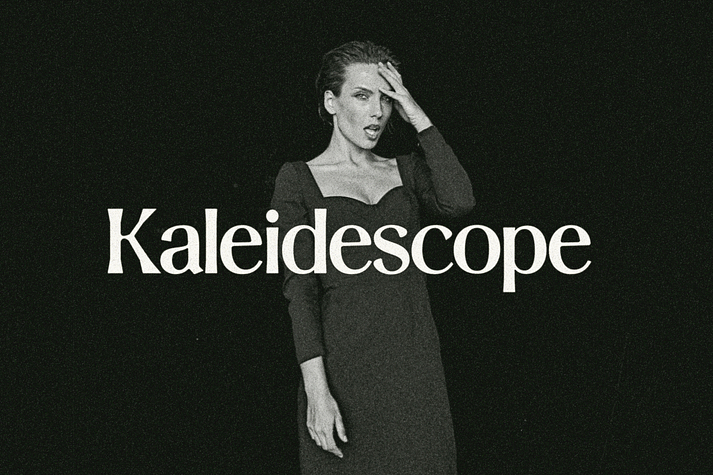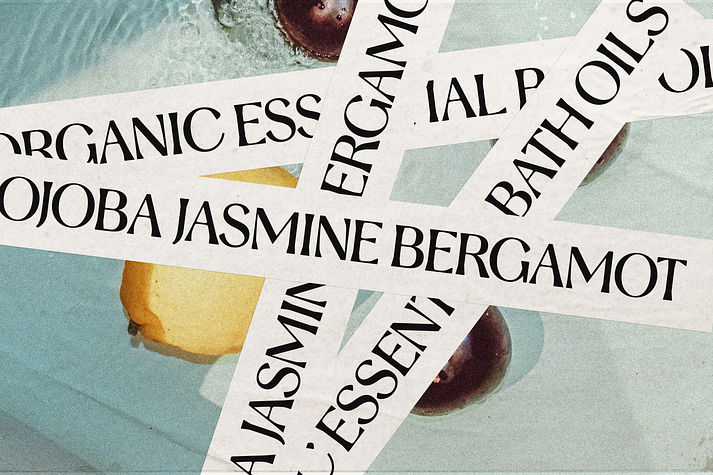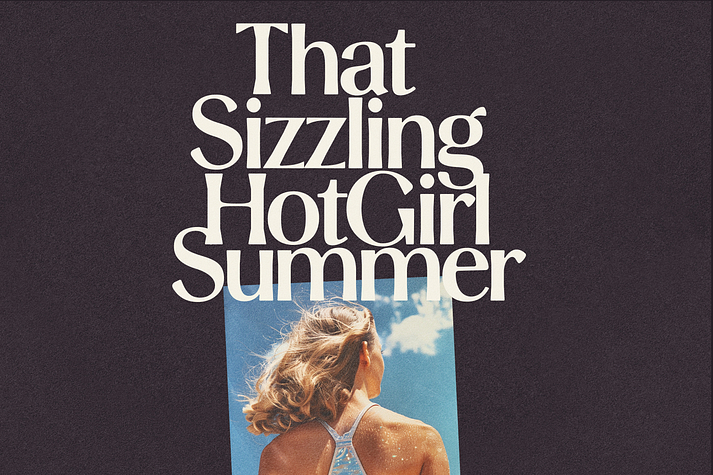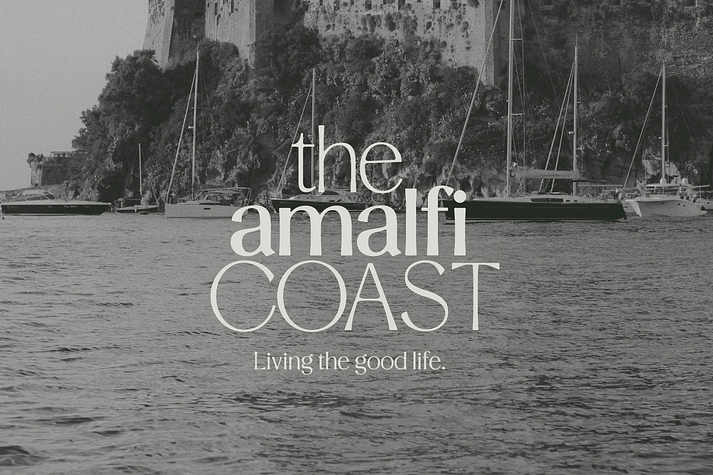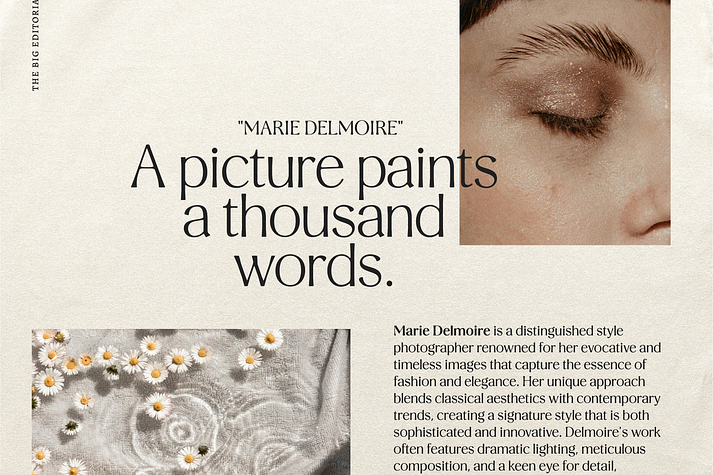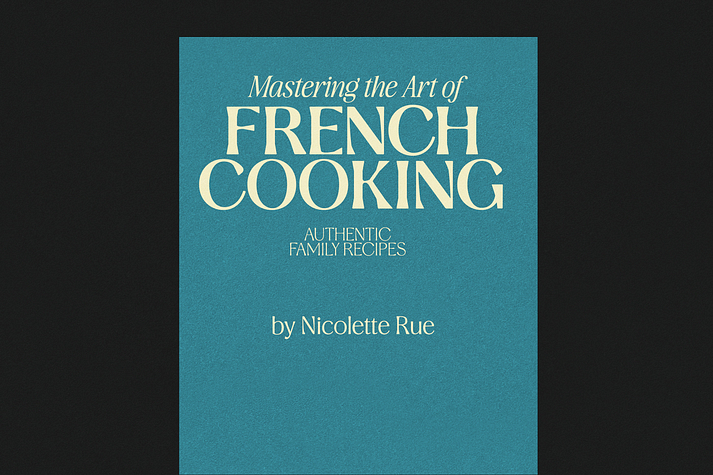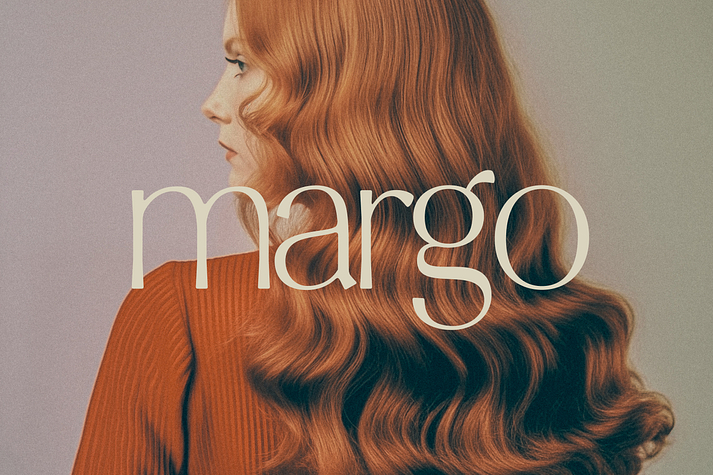
Stylish Aesthetic
Stylish Aesthetic is a sans serif and serif font family. This typeface has nine styles and was published by Nicky Laatz.
Make heads turn with the new ’ Stylish Aesthetic ’ - A Chic, bold and sleek new multi-weight typeface. A high contrast sans, where smooth and angular forms meet in perfect harmony.
9 Weights in total - From a smooth & sophisticated ‘Extra light’ , to a dramatically angular ’ Black’ ....she has you covered for everything in between.